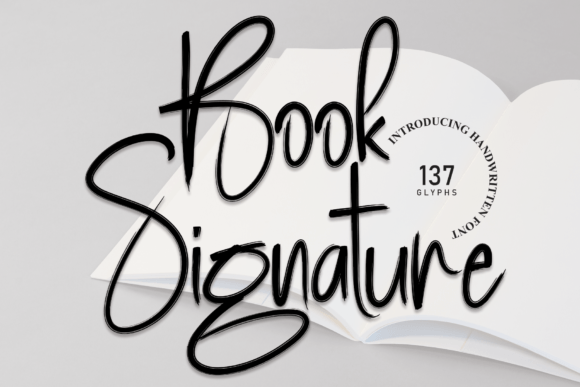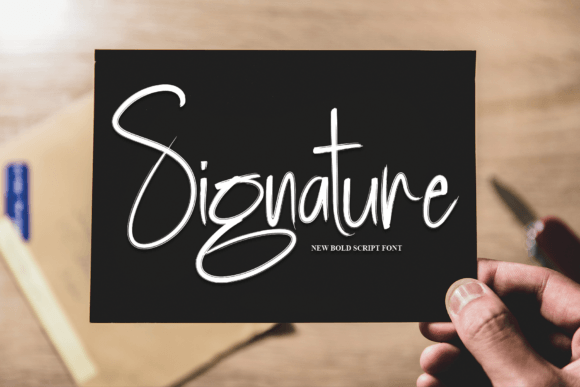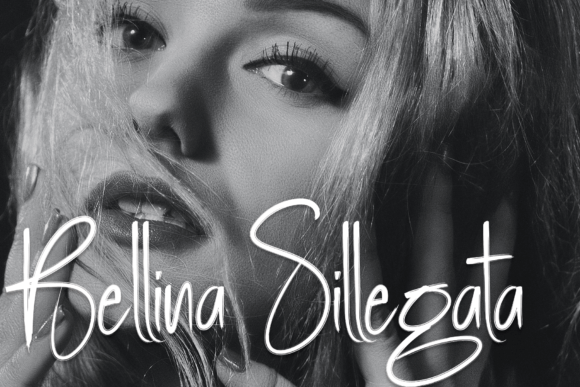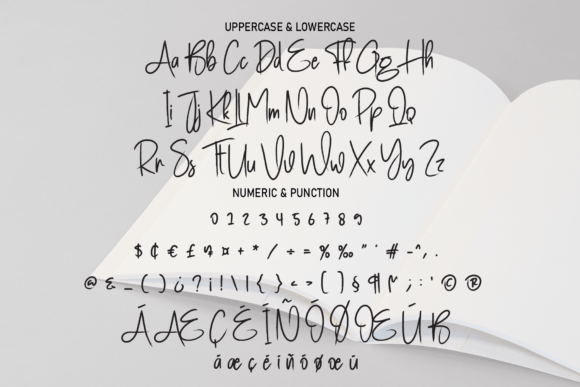
Book Signature Font
About the Book Signature Font
Step up your design game with Book Signature Font, a font that exudes confidence and style. Book Signature is a delicate, elegant, and flowing handwritten font. It has beautiful and well-balanced characters and as a result, it matches a wide pool of designs.
Book Signature excels in applications requiring a touch of refined elegance. It’s ideal for logos, short headlines, invitations, and other projects where readability over long spans isn’t crucial. The delicate nature of the script makes it unsuitable for body text or UI elements where legibility at smaller sizes is paramount.
Consider pairing Book Signature with a clean sans-serif like Lato for a modern feel, or a classic serif such as Garamond for a more traditional aesthetic. For a playful contrast, a geometric sans-serif such as Montserrat could work well. The font’s overall personality is sophisticated and graceful, lending itself to brands focused on luxury, artistry, or personal expression.
Avoid using Book Signature in contexts demanding high readability at small sizes or within dense blocks of text. Its flowing, cursive nature prioritizes aesthetic appeal over optimal functionality for large amounts of written content.
Book Signature Font Usage Examples
Book Signature Font Example